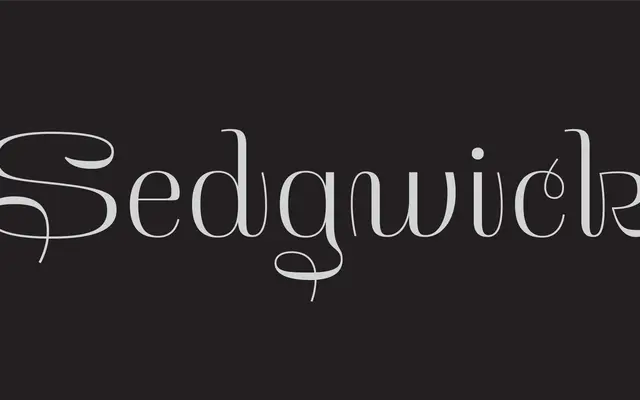
Sedgwick
An upright, unconnected display script by Troy Leinster, drawing on Dutch metal type and civilité forms for fashion branding and short poetic settings.
Sedgwick takes its structural cues from Lettergieterij Amsterdam's 1909 Nieuw Javaansch No.1 and the civilité types of the 15th and 16th centuries, arriving as a single upright style with mannered, unconnected letterforms. The lowercase drives a distinctive rhythmic texture, while the uppercase, figures and punctuation introduce unexpected forms suited to word-marks and headlines. OpenType features include stylistic alternates, contextual alternates, ligatures and capital punctuation, offering meaningful compositional control within a single weight.
An upright, unconnected script drawing on civilité types of the 15th and 16th centuries and a Dutch metal type revival; mannered letterforms with distinct stroke contrast place it firmly in the display script tradition.